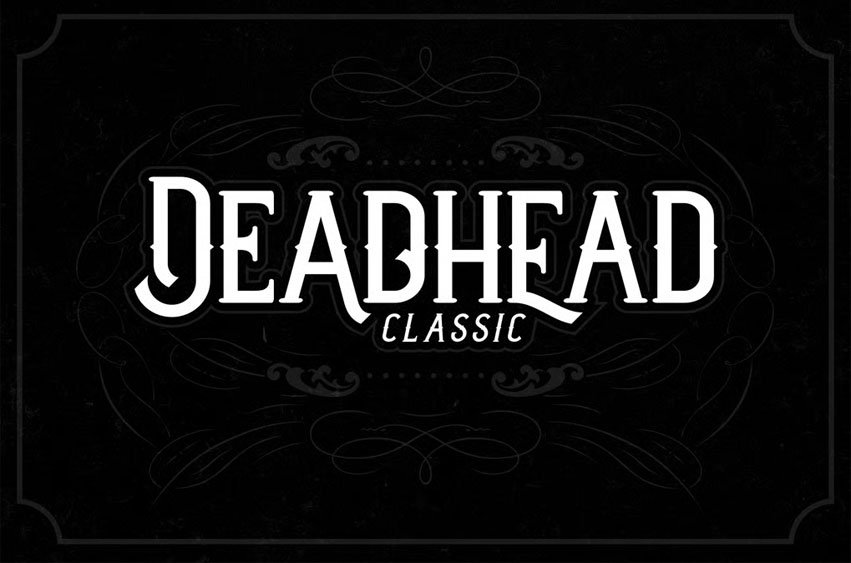
Deadhead Classic Font is a fun and playful serif typeface inspired from old-advertising letters in 60 – 70s. Suits best for your vintage-themed designs.
Loaded with 300+ glyphs, and also…
Packed with OpenType Features such as:
- Alternate characters,
- Stylistic sets,
- Titling characters,
- Terminal forms, etc. These features lets you explore the type-combinations, choose which suits best with your project.